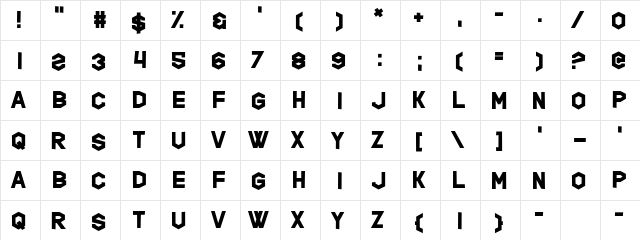
Hippopotamus Apocalypse Regular
| Designer | NAL |
Hippopotamus Apocalypse is a composed and adaptable typeface that performs quietly and consistently across a wide range of design contexts.